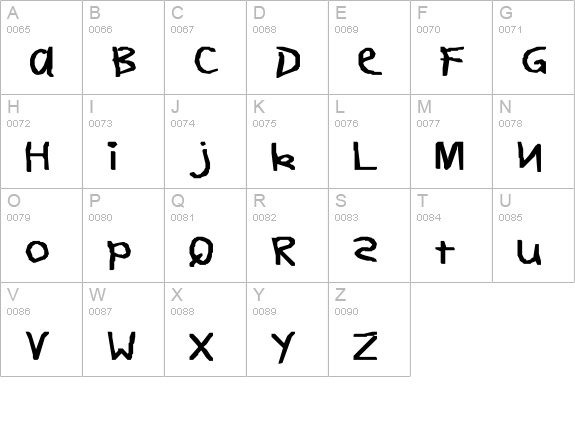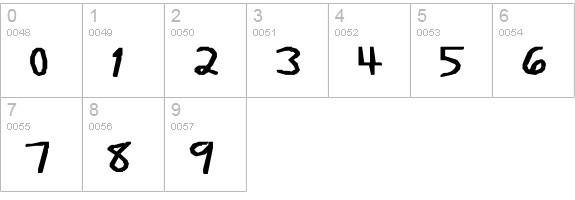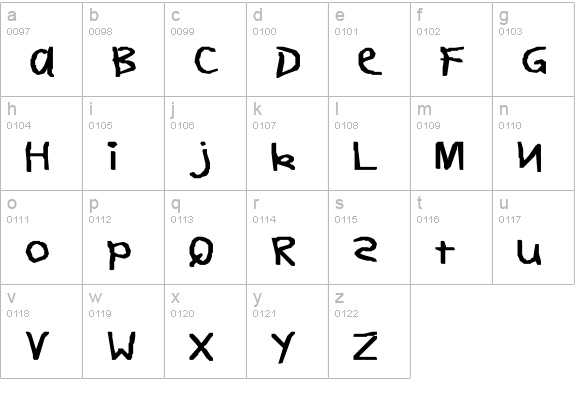
DearTeacher-Normal Bold Font Details
DearTeacher-Normal Bold is the standard, neutral variant in the DearTeacher typeface family \xE2\x80\x94 well suited to general body text, paragraphs, and standard typographic work.